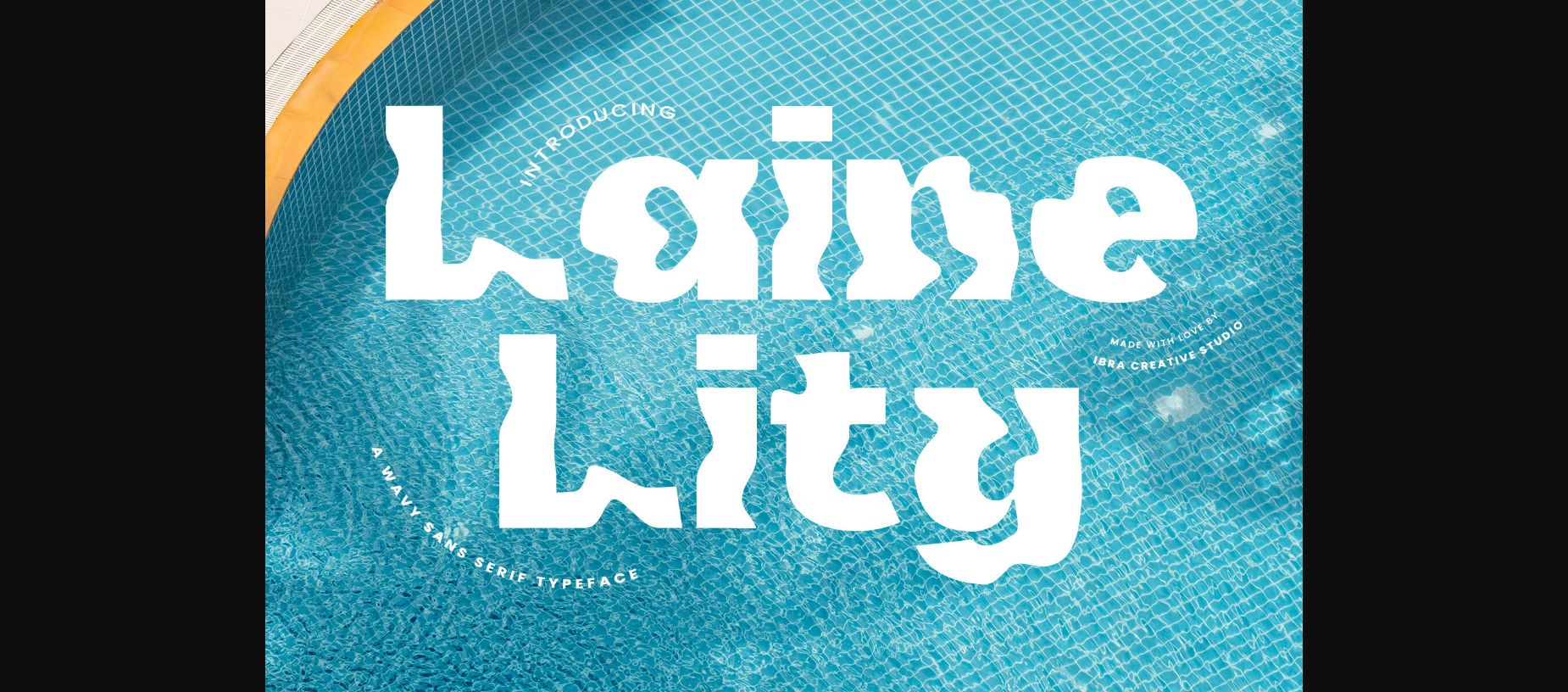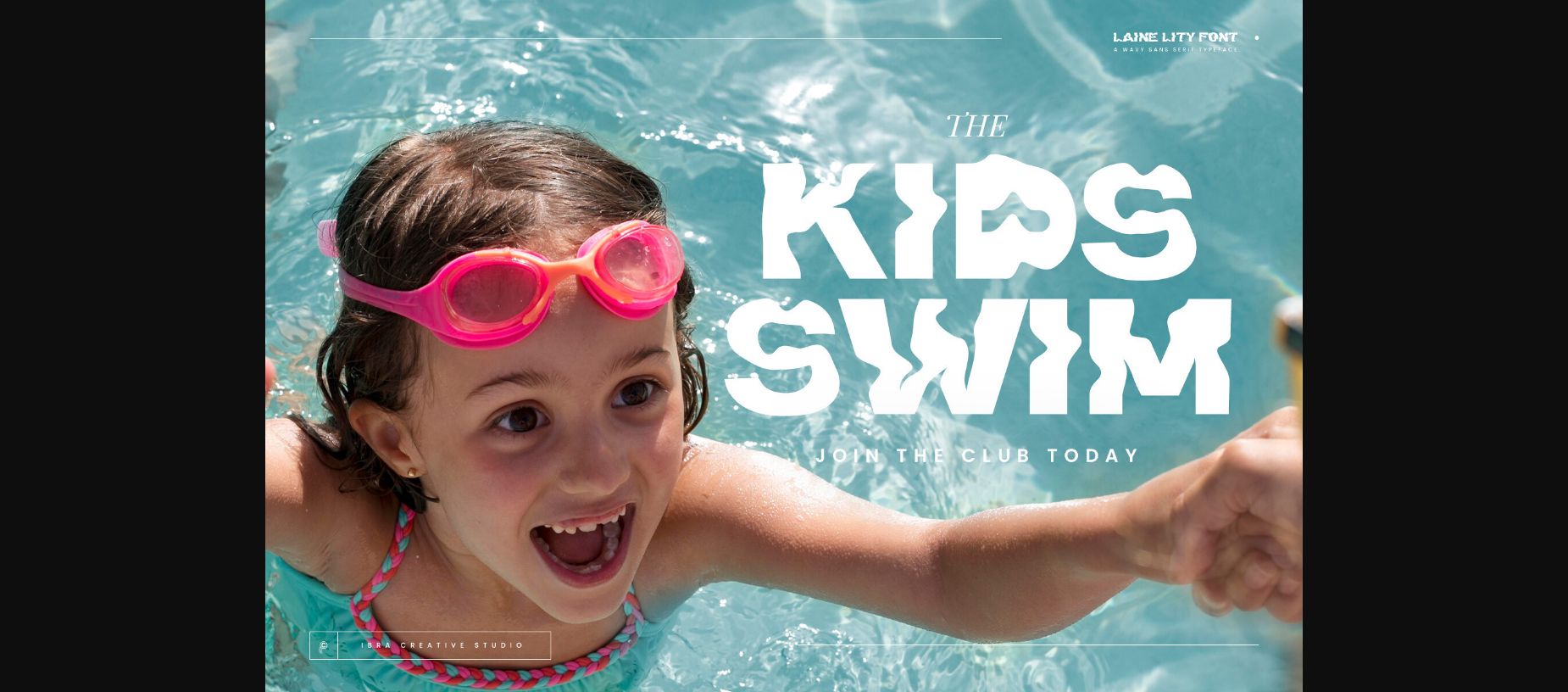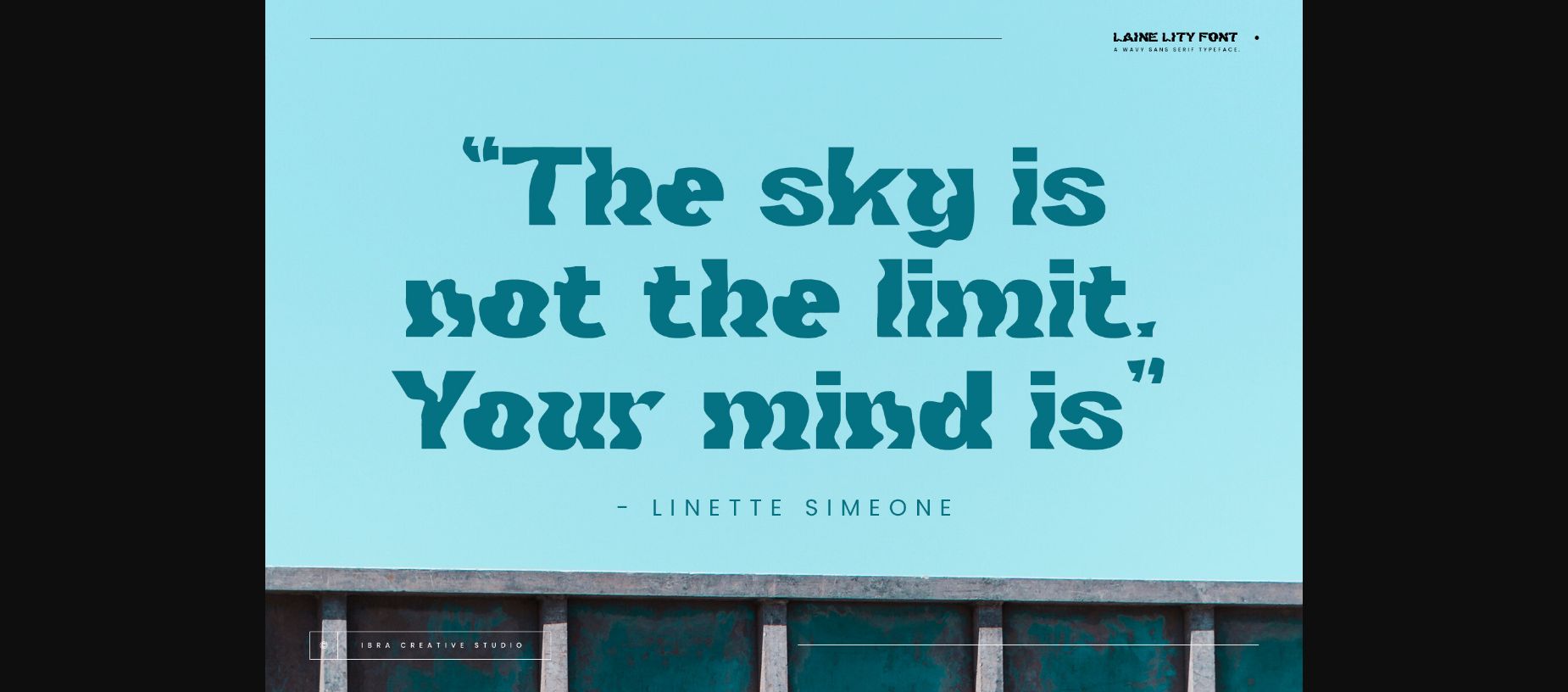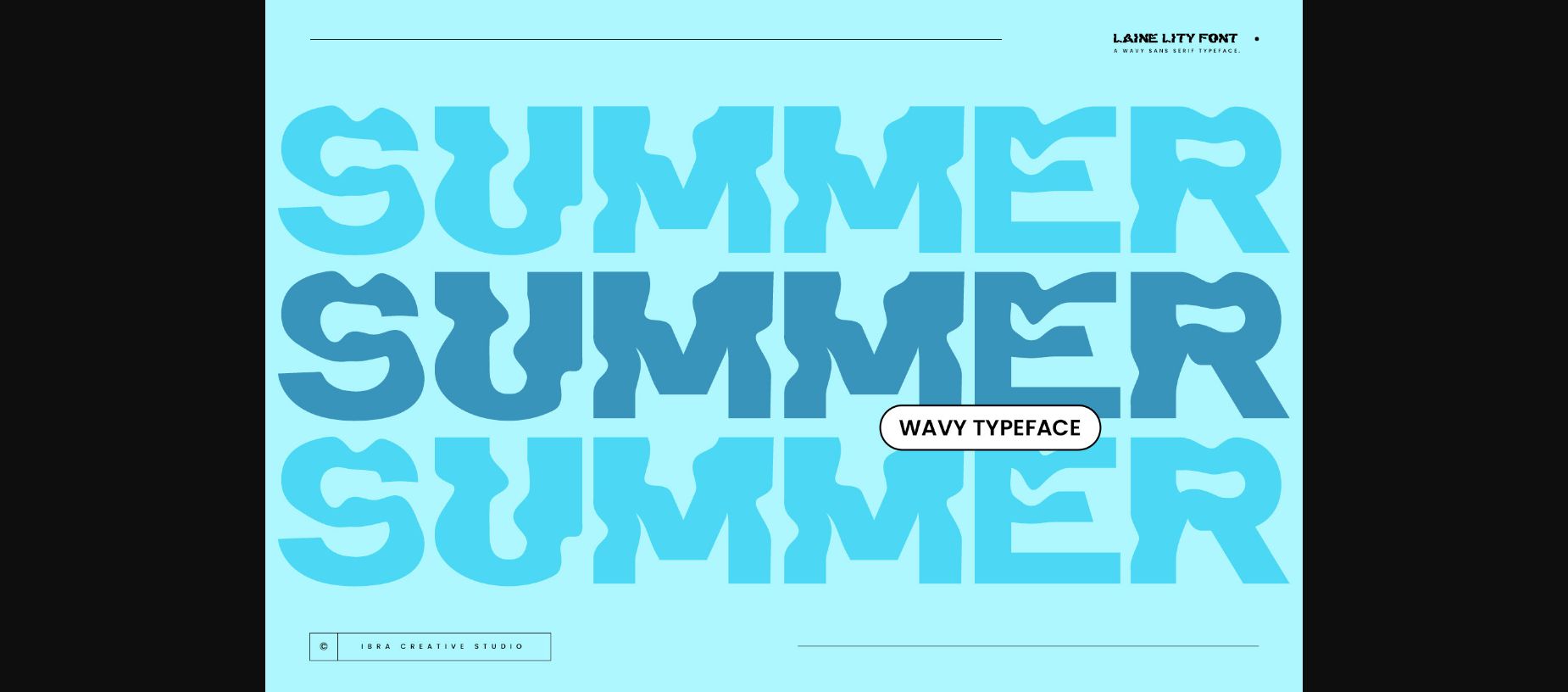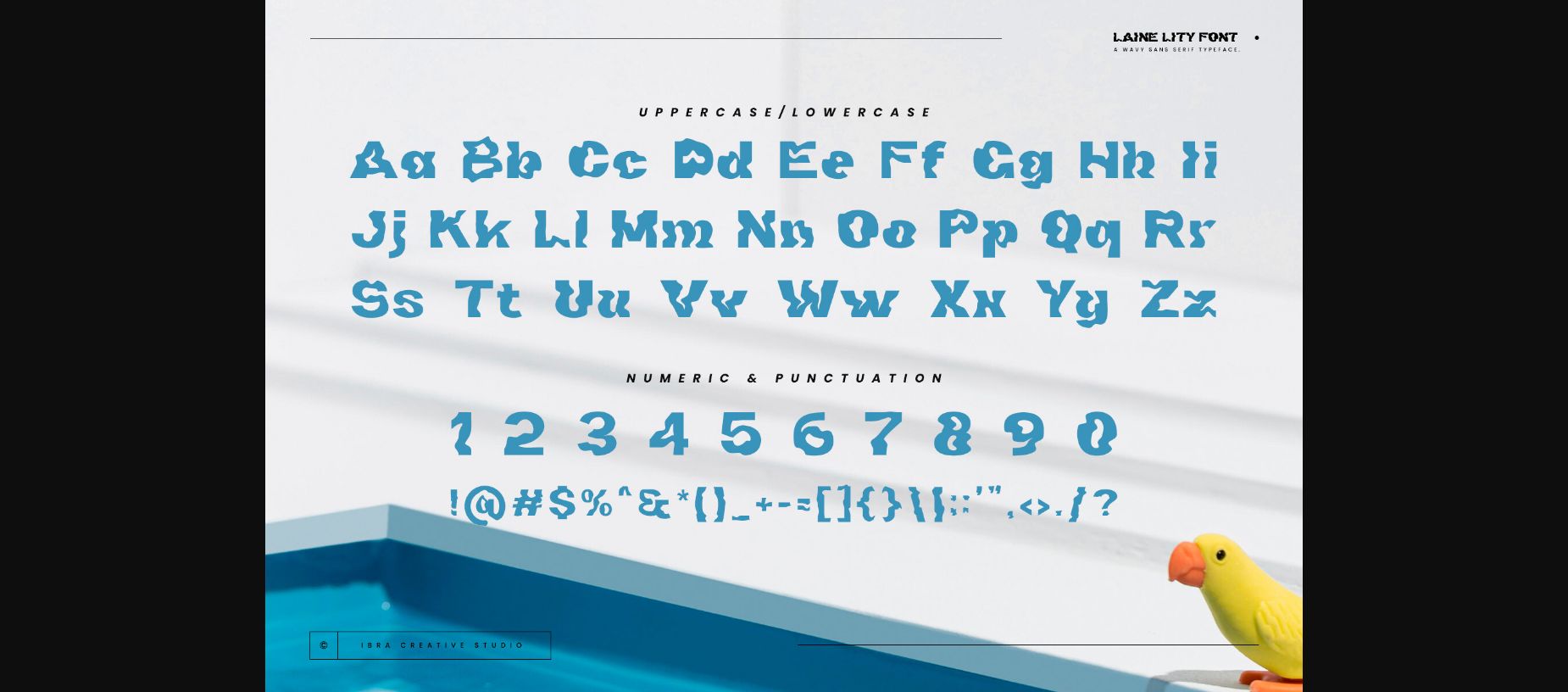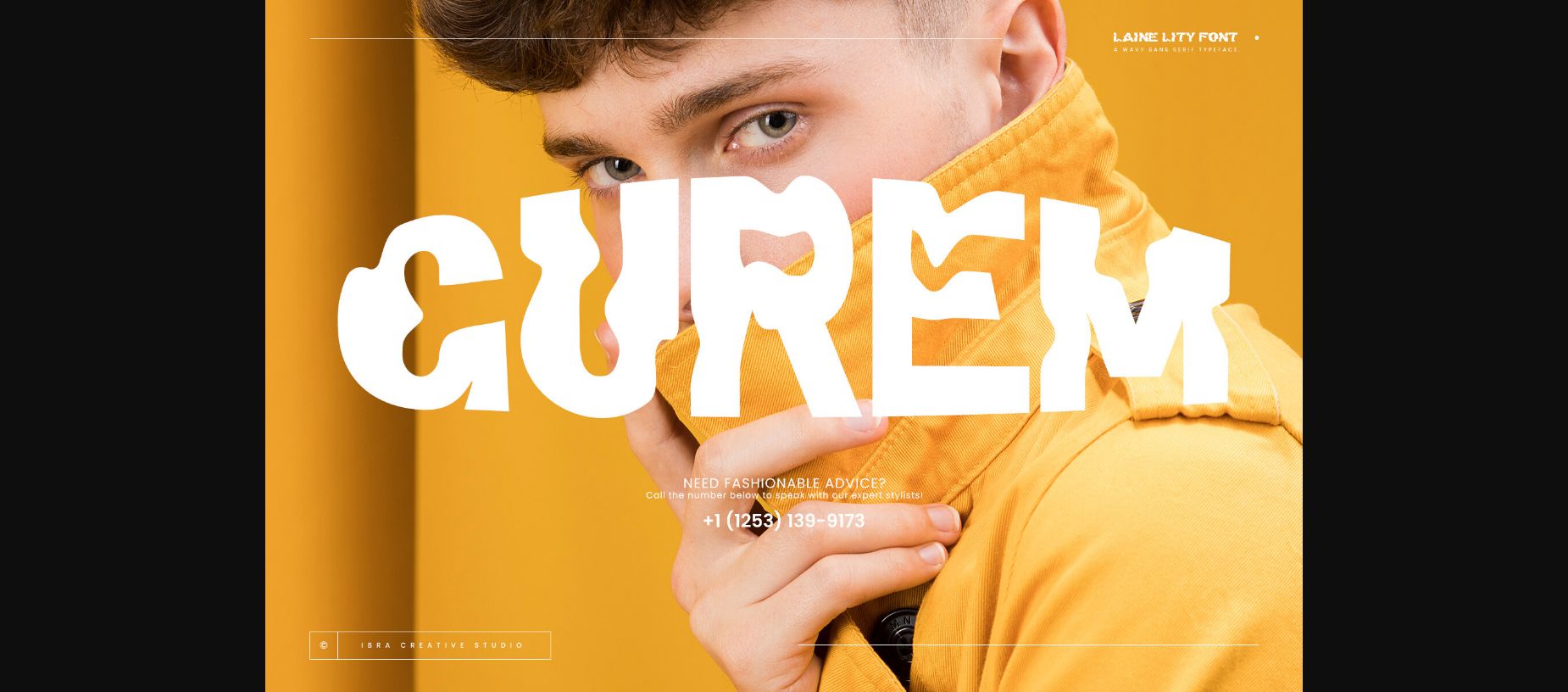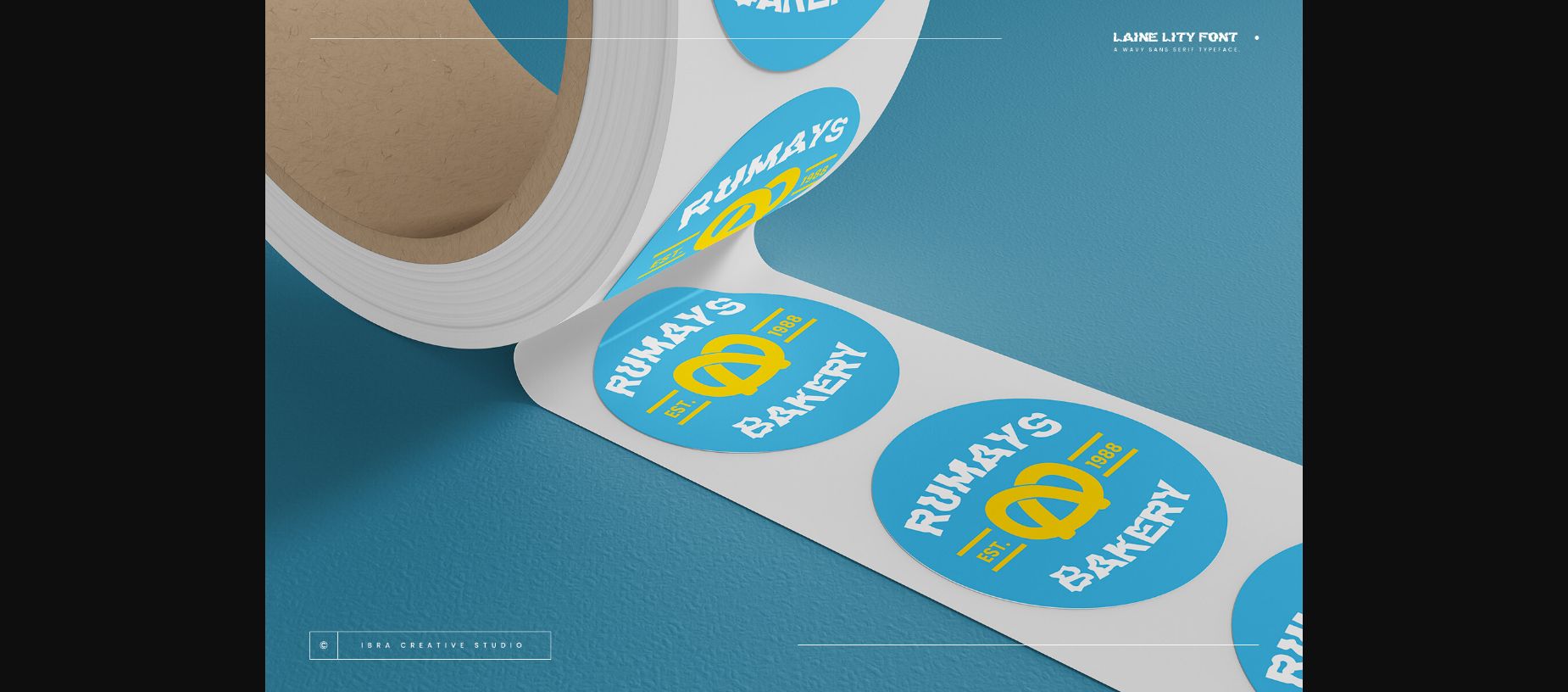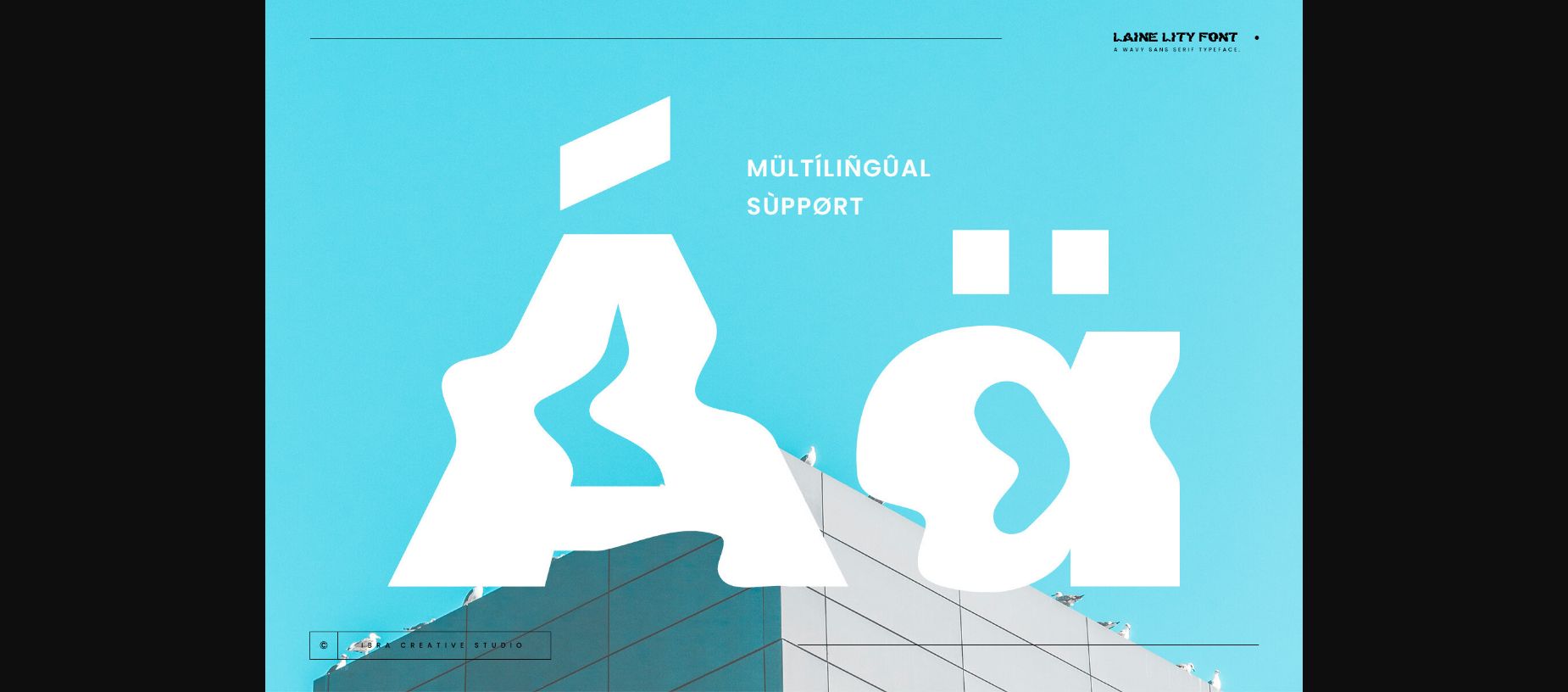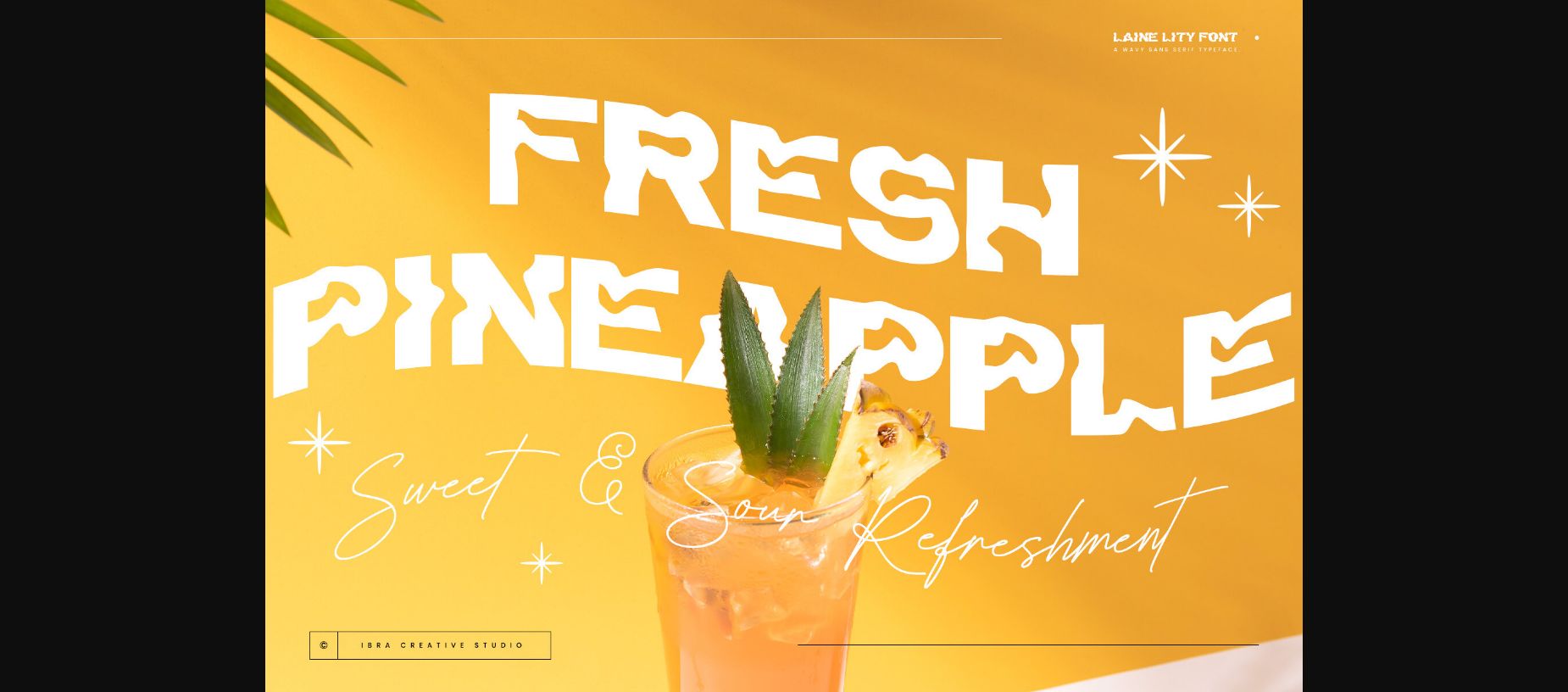
Laine Lity Font
About Laine Lity Font
Laine Lity, a wavy sans-serif typeface, captivates with its fluidity and modern appeal. Each letter in Laine Lity is crafted with smooth, undulating lines that evoke a sense of movement and dynamism. Perfect for adding a contemporary touch to branding, editorial designs, or digital interfaces, Laine Lity stands out with its unique blend of elegance and innovation.